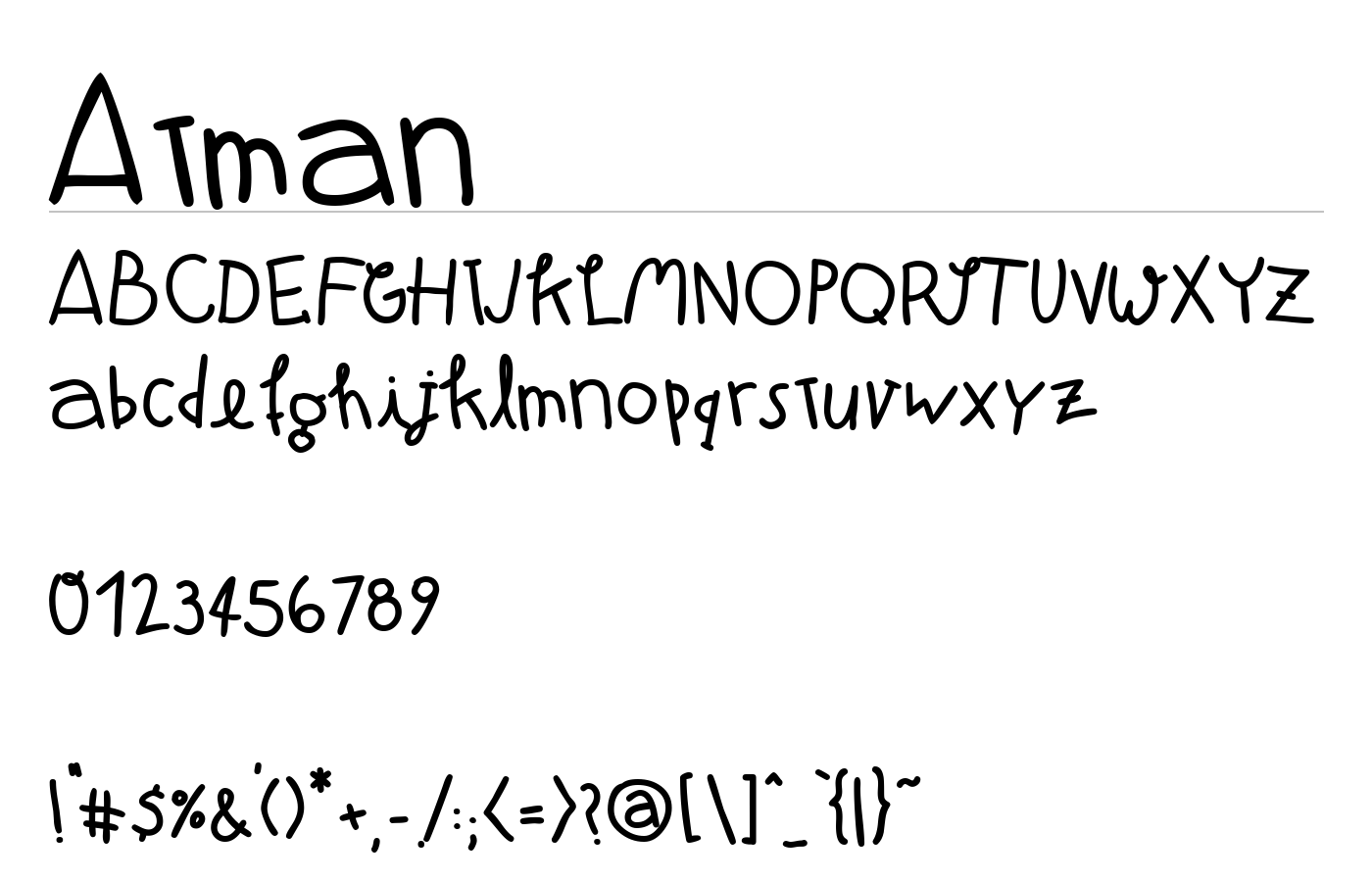
Atman Regular is a playful, handwritten sans serif font characterized by its tall, narrow letters with a casual, slightly irregular stroke that adds a friendly and approachable feel. Its quirky details, such as looped ascenders and unique letter shapes, make it ideal for creative projects, informal branding, and kids-oriented designs. This font works best for headings, logos, and packaging where a warm, personal touch is desired.
Atman Regular Font
About Atman Regular Font